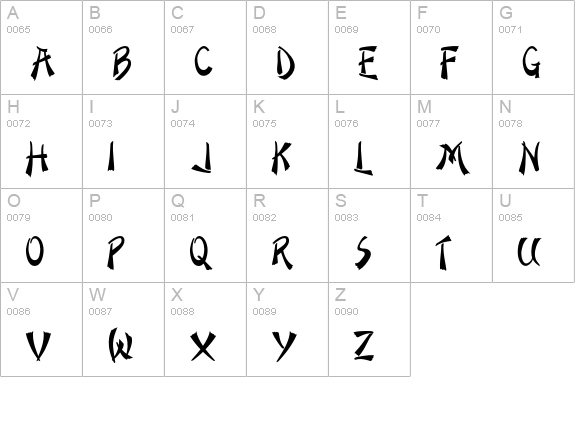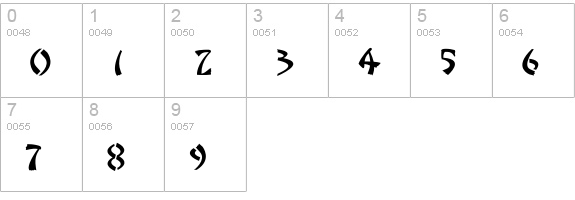
SMCHongKong Font Details
Introducing SMCHongKong, a stunning font that effortlessly combines elegance with a touch of modernity. This versatile typeface is perfect for any creative project, whether it be designing eye-catching logos, crafting beautiful invitations, or creating striking headlines. SMCHongKong showcases a unique blend of sleek lines and elegant curves, resulting in a font that is both sophisticated and contemporary. Its carefully crafted letterforms exude a sense of professionalism, making it an excellent choice for businesses and professionals looking to make a memorable impression. What sets SMCHongKong apart is its remarkable versatility. With multiple weights and styles to choose from, this font can adapt to any design need, from bold and impactful headlines to delicate and refined body text. Its extensive character set also includes a wide range of international language support, ensuring that your message can be effectively communicated across borders. And the best part? SMCHongKong is freely available to download at FontsMarket.com. This means that you can enjoy the beauty and functionality of this remarkable font without any cost. Whether you're a professional designer or a casual enthusiast, SMCHongKong is a must-have addition to your font library. So why wait? Elevate your designs with the elegant charm of SMCHongKong and experience the power of free creativity today. Download it now from FontsMarket.com and unlock a world of possibilities for your next project.